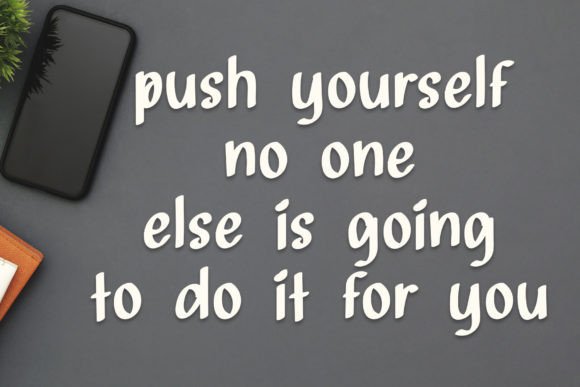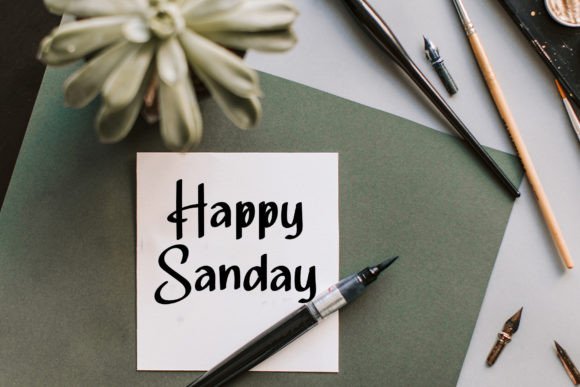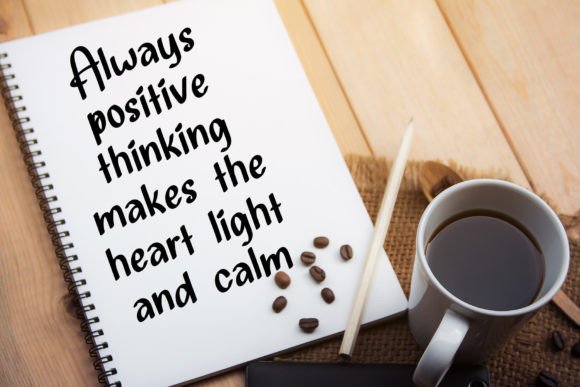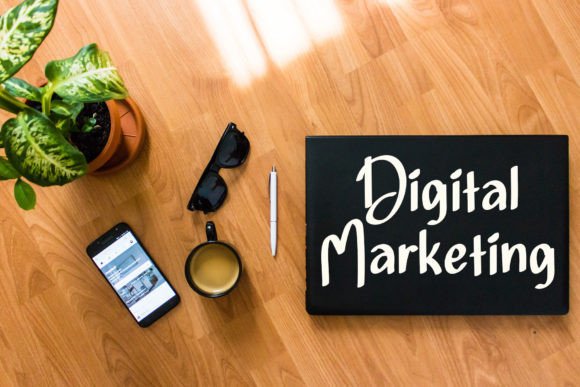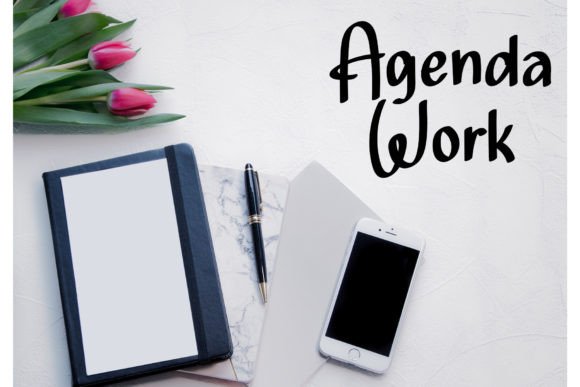
Introduction to Marmaid Font
Do you ever find yourself scrolling through design inspiration boards, searching for that perfect font to elevate your creative project? I do. One day, I stumbled upon a stunning wedding invitation that caught my eye – the elegant script used was unlike anything I’d seen before. It was then that I discovered the enchanting Marmaid Font.
As a designer, you understand the importance of having a reliable design resource at your fingertips. Marmaid Font is that resource. With its polished and sophisticated aesthetic, it’s perfect for adding a touch of sophistication to wedding invitations, greeting cards, or even professional business cards. Its naturally varied baseline gives it a unique, handwritten charm that sets it apart from other fonts.
Key Features of Marmaid Font
- Comes in 6 different styles with unique characteristics for added depth
Honest Review: Marmaid Font
As a designer, I’m always on the lookout for high-quality design resources that can elevate my creative projects. The Marmaid Font caught my eye, and I decided to give it a try.
- ✨ High-quality font design with a unique and playful style.
- ⚠️ Limited character set, which may not be ideal for projects requiring extensive text.
- ⚠️ Some users may find the font too whimsical or distracting for certain design styles.
Overall, I’m impressed with the Marmaid Font’s potential for adding a touch of personality to my designs. While it may not be suitable for every project, it’s a great resource to have in your toolkit for more creative and playful projects. If you’re looking for a free and high-quality design resource, the Marmaid Font is definitely worth checking out.
Tips for Getting the Most Out of Marmaid Font
Experiment with different font sizes and colors to create a unique design. Use the Marmaid Font in conjunction with other design resources to add depth and interest to your project. Consider using the font in a creative way, such as using it as a background or overlay.
The Marmaid Font is perfect for use in wedding invitations, baby shower invitations, and other special occasions. It’s also great for use in branding and marketing materials, such as business cards and brochures. With its high-quality design and transparent background, the Marmaid Font is a valuable addition to any design project.